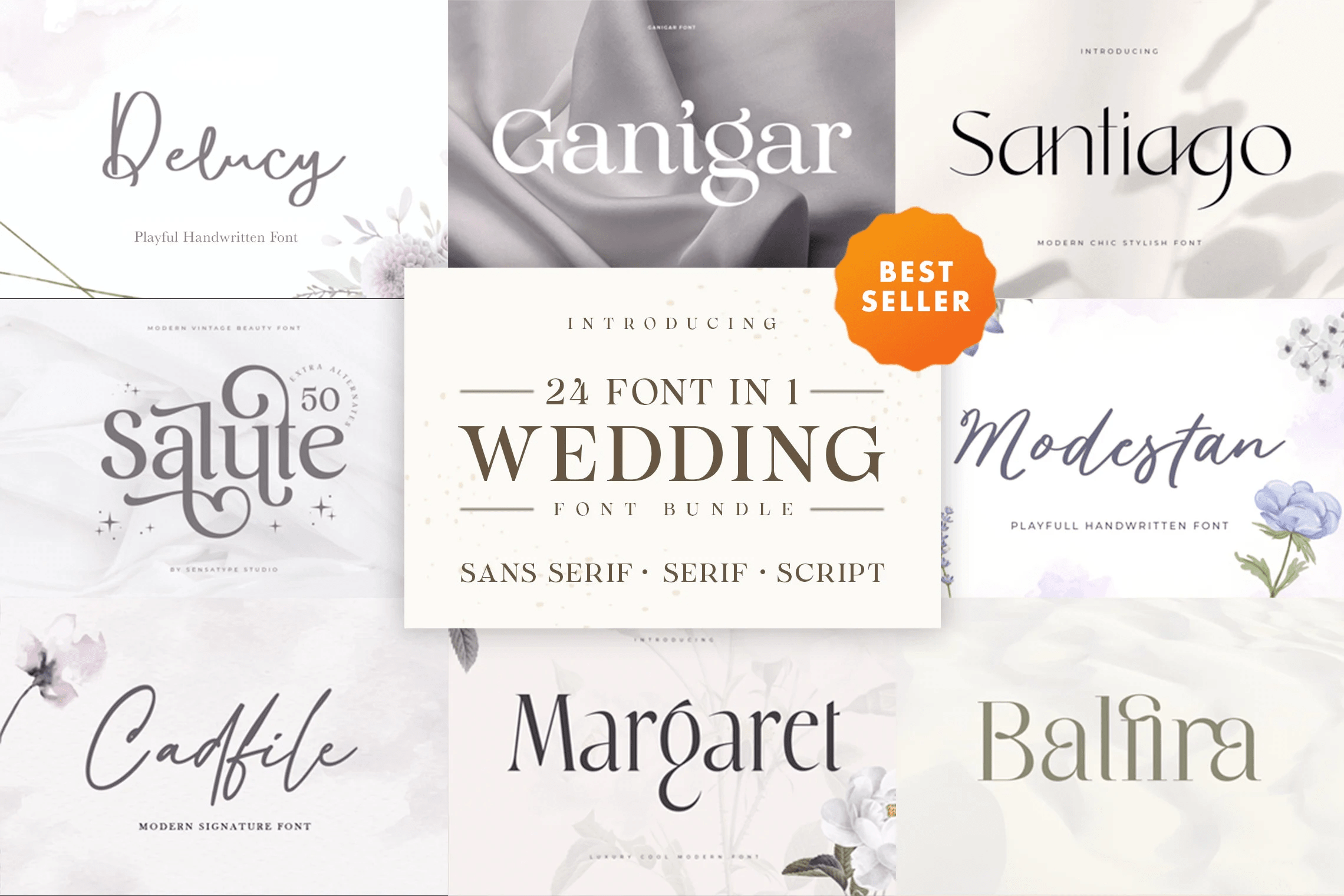
Wedding Font Bundle 24 in 1
Celebrate love and elegance with our "24 in 1 Wedding Font Bundle," specially designed for those special moments. Perfect for creating enchanting wedding invitations, heartfelt gifts, and memorable keepsakes, each font in this bundle radiates with unique class, elegance, and romance. Elevate your wedding designs with our carefully selected fonts, ensuring your invitations and gifts stand out with timeless beauty.
Bundle Highlights:
Versatile Styles: Features wedding, commercial use, cursive, calligraphy, and script fonts.
Complete Character Set: Equipped with uppercase, lowercase, numerals, and punctuations.
Multilingual Characters: Perfect for creating invitations and gifts that reach a global audience.
Aruna
Austin
Balfira
Bridge
Cadfile
Calista
Ceria
Delucy
Ganigar
Granola
Gray
Kilura
Lucky Beauty
Mahalini
Malfin
Margaret
Modestan
Parisian
Rainfall
Rebeca
Refina
Rudge
Salute
Santiago